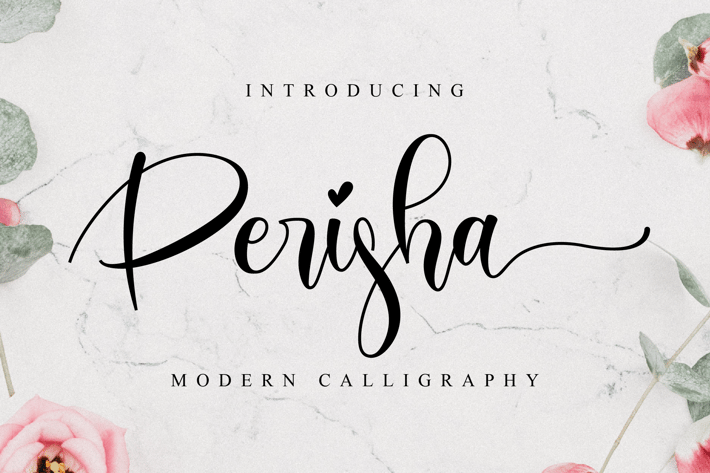
Perisha - Lovely Script Font
Perisha is a beautiful script font that has a classy, elegant, and modern look. It is perfectly suited for a wide variety of projects!
Modern Handwritten Font
Beautiful Swash (Ending tail)
Beautiful Titling (Beginning tail)
Special Ligatures